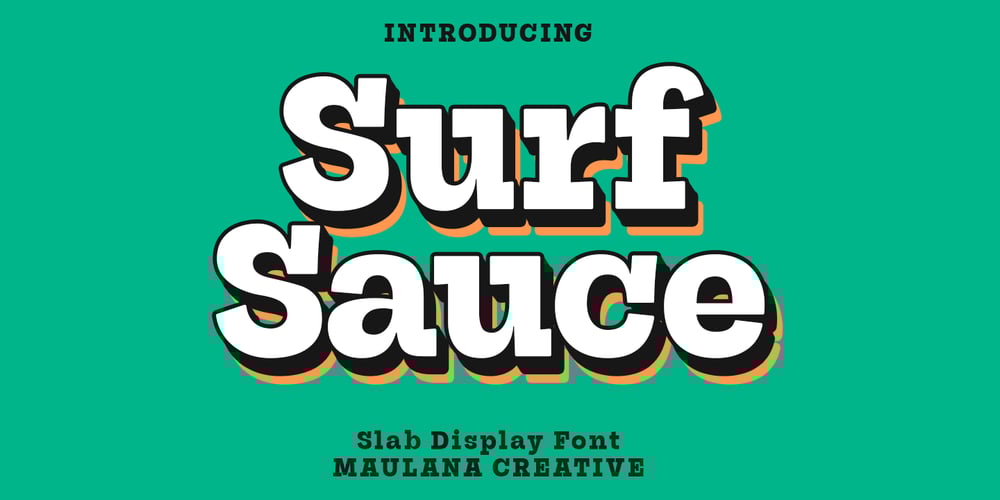
Surf Sauce Font Family was designed by Gilang Maulana and published by Maulana Creative. Surf Sauce contains 1 styles and family package options. Surf Sauce is a modern slab serif font. With bold stroke, fun character. To give you an extra creative work. Surf Sauce font support multilingual more than 100+ language. This font is good for logo design, Social media, Movie Titles, Books Titles, a short text even a long text letter and good for your secondary text font with Script or sans. Make a stunning work with Surf Sauce font. Cheers, Maulana Creative